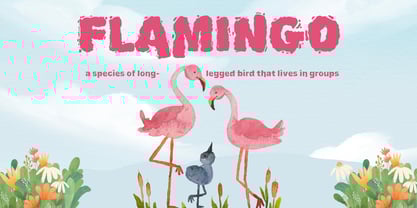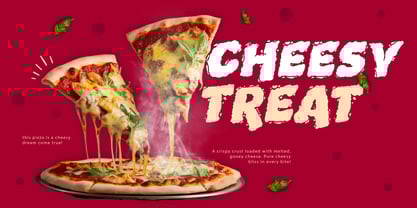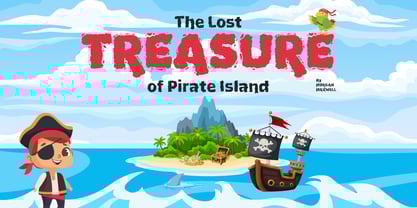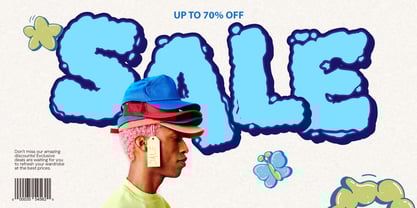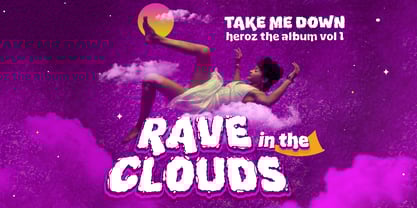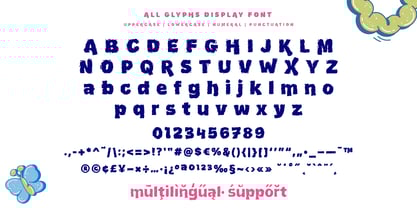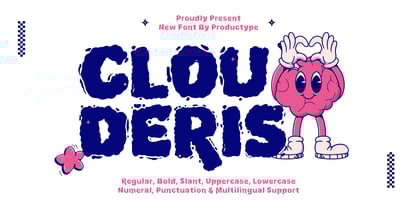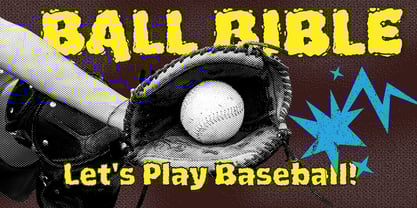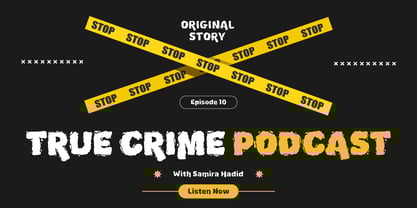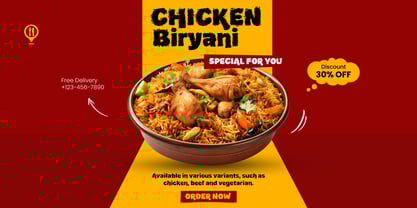
Clouderis
Clouderis is a fun and bouncy bubble-style font that brings a fresh, energetic vibe to your designs. Its bold, rounded letters with a playful texture make it perfect for eye-catching headlines, branding, merchandise, and creative projects. Whether you're designing for posters, cartoons, games, or social media graphics, Cloudris adds a cheerful and friendly touch to your typography.
Features:
✔ Regular, Bold, and Slant styles
✔ Uppercase & Lowercase Letters
✔ Numerals & Punctuation
Give your projects a fun and lively personality with Clouderis – Bubble Font!